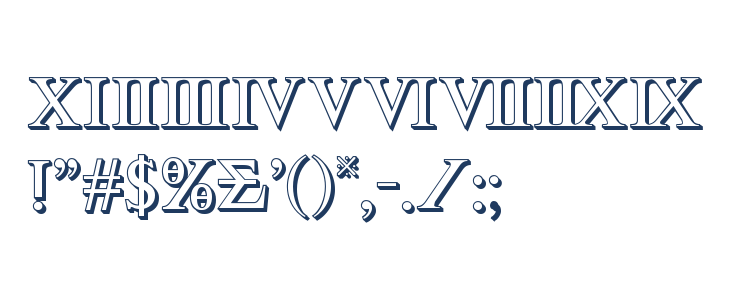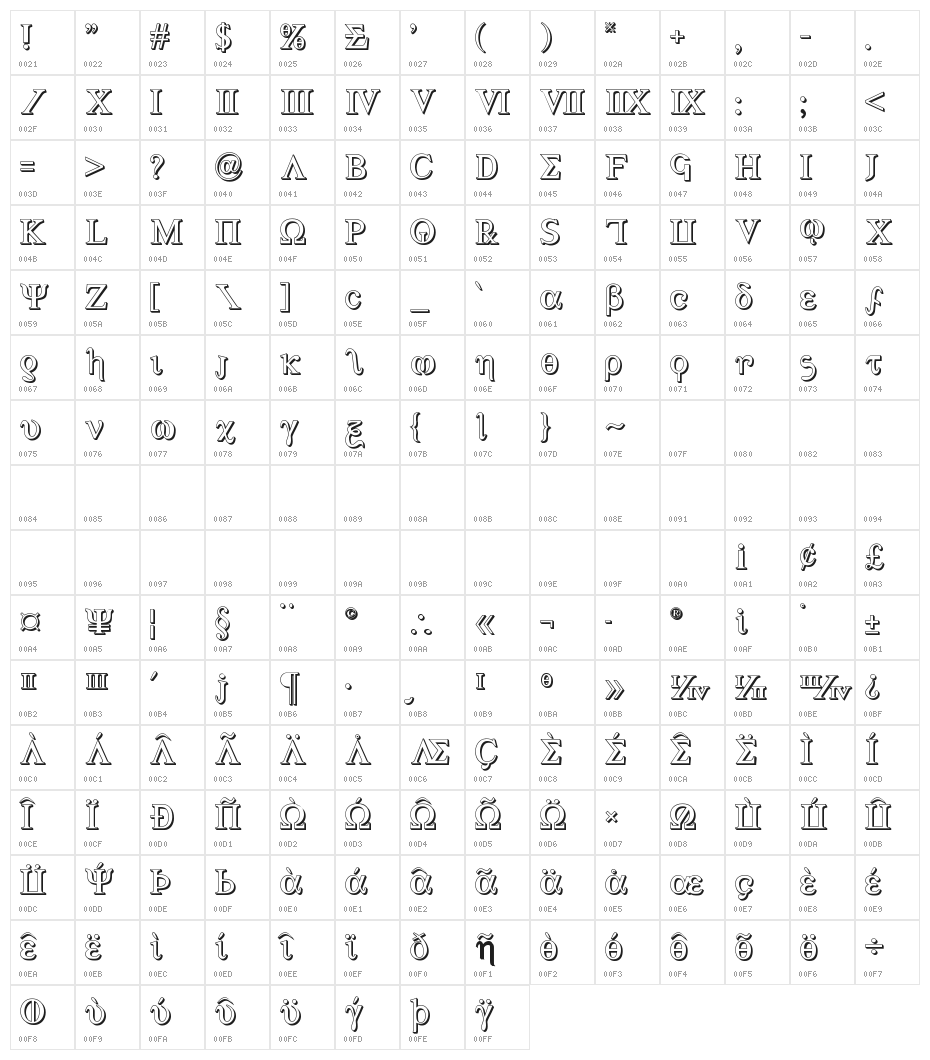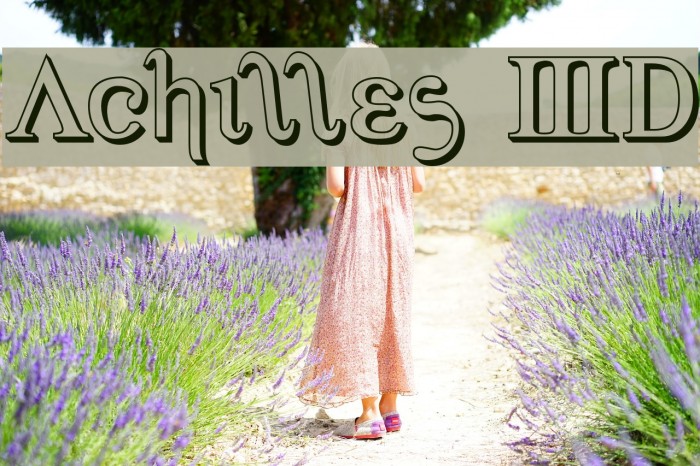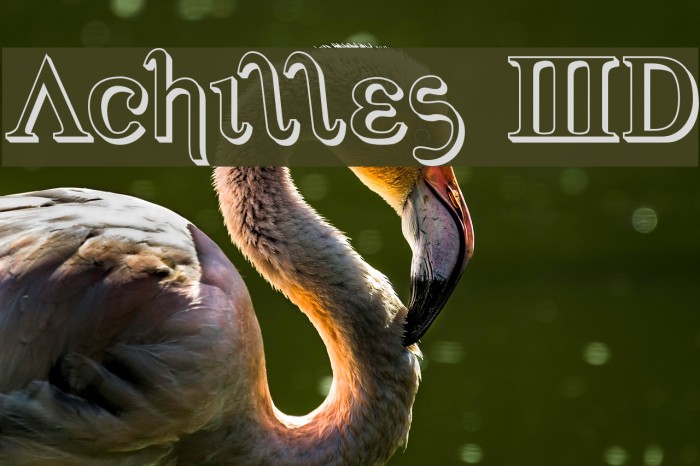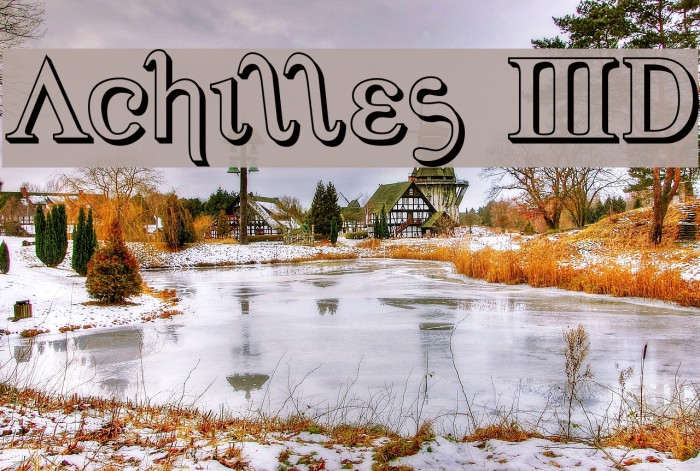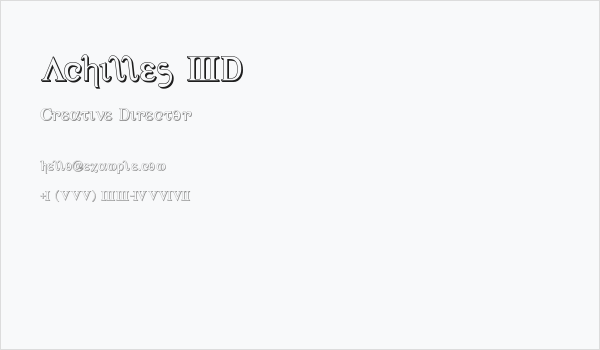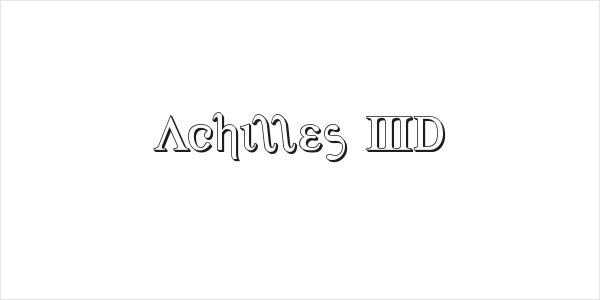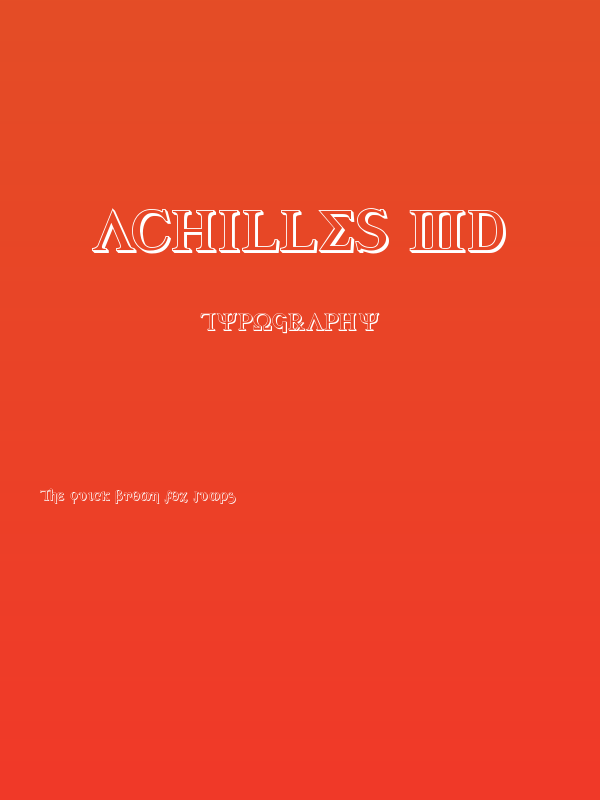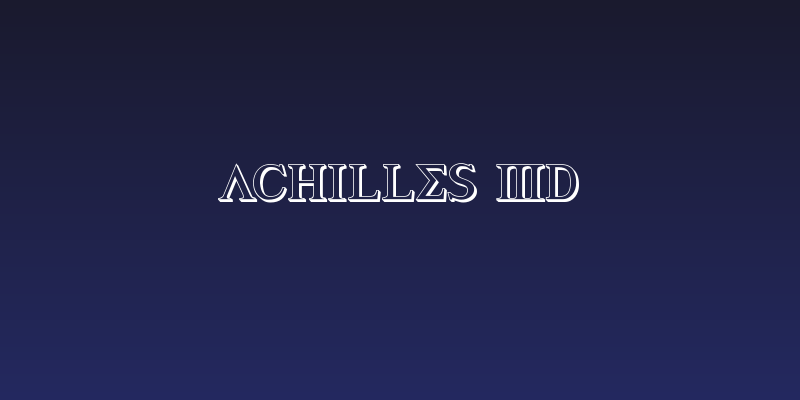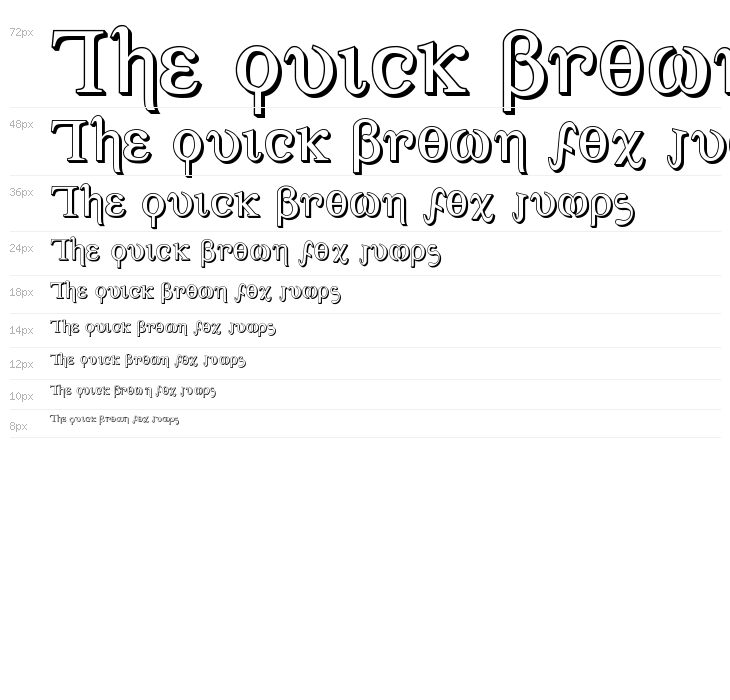
Achilles 3D Font
Achilles 3D Description
This font features a bold and striking design with a three-dimensional effect, giving it a unique and eye-catching appearance. The characters are outlined with a shadow-like detail, enhancing the depth and making each letter stand out prominently. The uppercase letters are angular and geometric, while the lowercase letters maintain a consistent style with slightly softer curves. The numerals and special characters follow the same bold and dimensional style, ensuring a cohesive look across all glyphs. This font is ideal for projects that require a strong visual impact and a modern, dynamic feel.
| Proposed Projects | Ideal for headlines, posters, logos, and any design needing a bold, impactful typeface. |